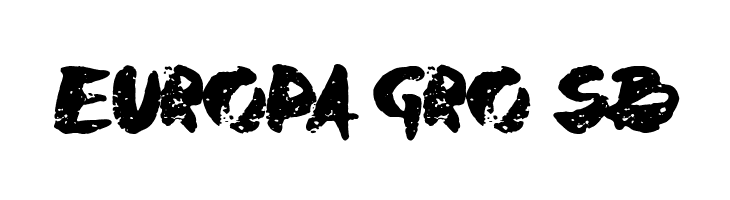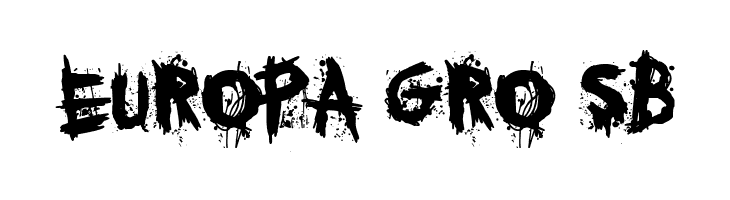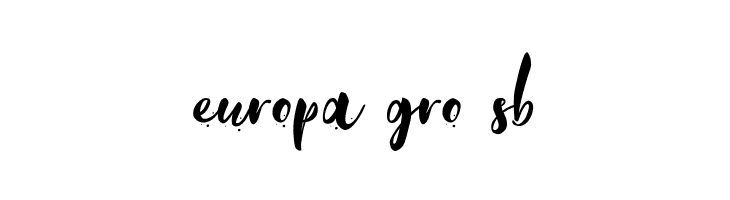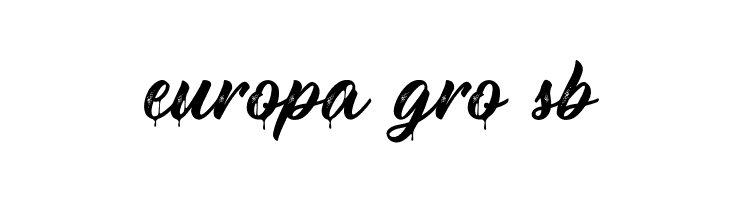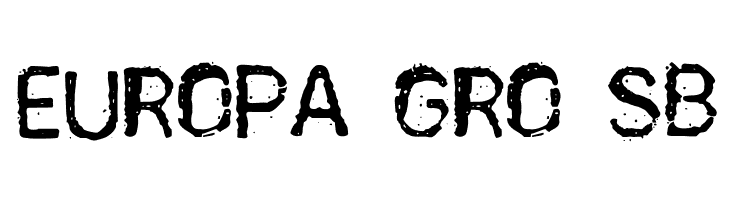
A bold, distressed font with a playful, grunge-like texture.
A dramatic, blood-drenched style font with condensed, italicized characters.
A bold, distressed font with a grungy, textured appearance.
A bold, distressed font with a grunge aesthetic.
A bold, grungy font with jagged, distressed characters.
A bold, grungy font with a distressed, hand-drawn appearance.
A dynamic, expressive script font with a playful, handwritten style.
A bold, decorative script font with a grunge effect and flowing cursive style.
A bold, distressed font with a grunge, graffiti-inspired style.
A bold, grunge-style font with a distressed, textured appearance.